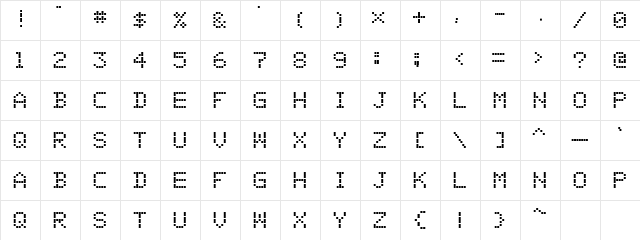
01 Digit Regular
Design Context for 01 Digit Typeface
01 Digit channels digital-age aesthetics through its sharp, structured letterforms — ideal for brands that want to signal innovation.
Pro Tip: Try 01 Digit with generous letter-spacing in UI labels and navigation — the geometric forms benefit from room to breathe.